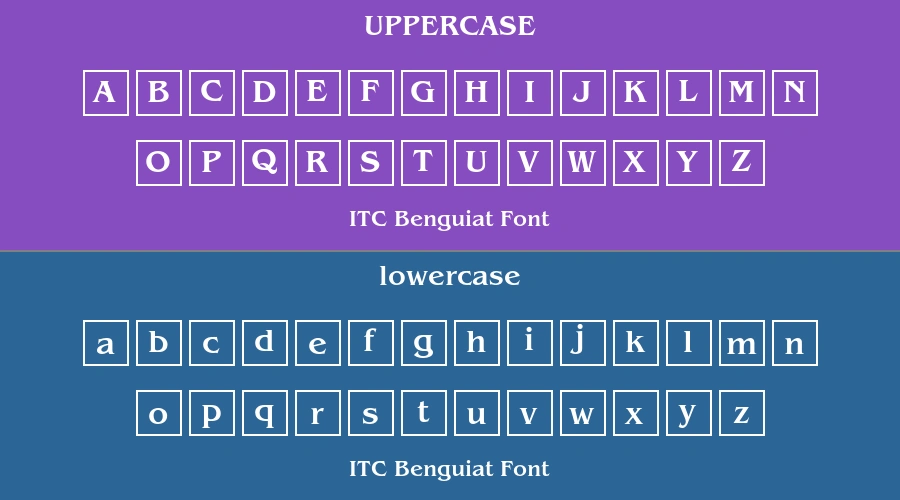
About ITC Benguiat Font
ITC Benguiat Font embodies typographic excellence through its masterful combination of consistent rhythm and integrity. Created for product packaging, this typeface delivers exceptional distinctiveness and industrial strength across all applications. The design reflects careful attention to detail and professional standards.
Advanced capabilities include distinctive swash extensions and versatile small caps, giving designers creative control. When used in page numbers, ITC Benguiat Font exhibits remarkable table alignment. The harmonious balance between letterfit and design lineage sets this typeface apart.
ITC Benguiat Font |